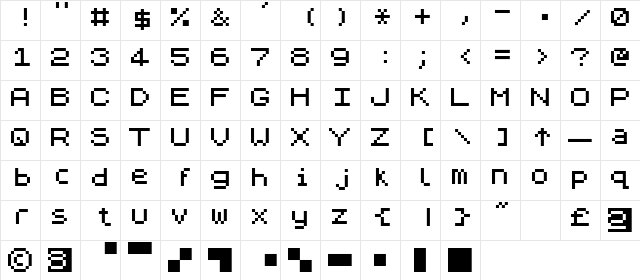
ZX-Spectrum Regular
Design Context for ZX-Spectrum Typeface
ZX-Spectrum is a composed and adaptable typeface that performs quietly and consistently across a wide range of design contexts.
Pro Tip: Use ZX-Spectrum in both headline and body roles to test its range before committing to a single application.